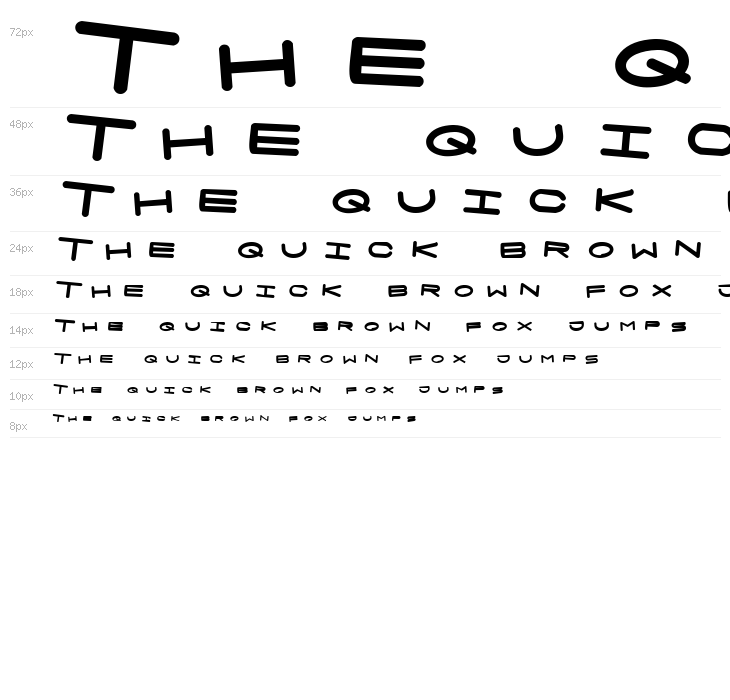
7 days fat rotated Font
7 days fat rotated Description
This font features a playful and slightly distorted style, with each character exhibiting a unique, wavy form that adds a sense of movement and fun. The uppercase letters are bold and prominent, while the lowercase letters maintain a consistent style, offering a quirky yet readable appearance. The numbers and special characters follow the same playful design, ensuring uniformity across all elements. The font's distinctiveness makes it suitable for creative and informal applications, where a touch of whimsy is desired.
| Proposed Projects | Ideal for children's books, comic strips, playful branding, and creative posters. |